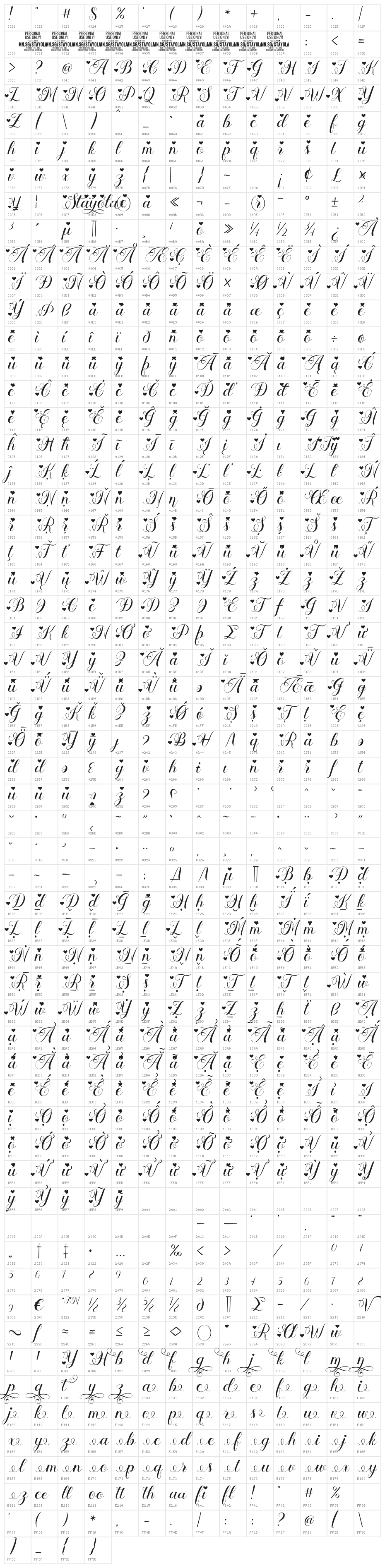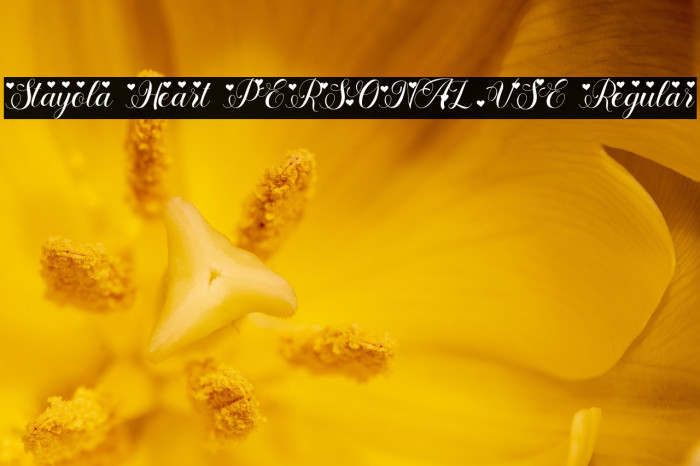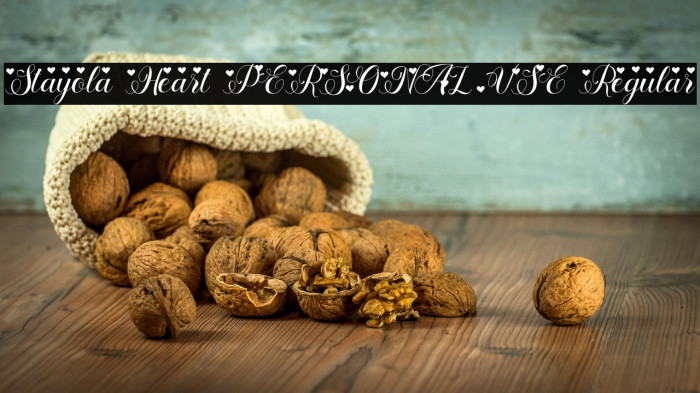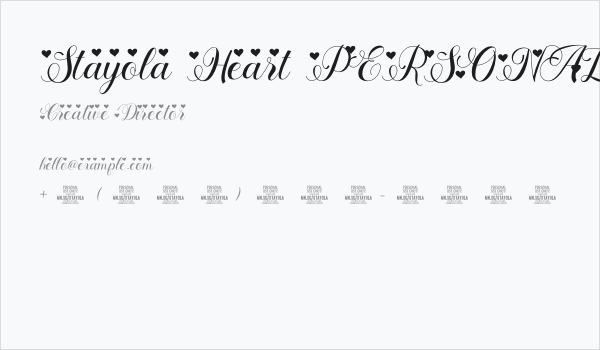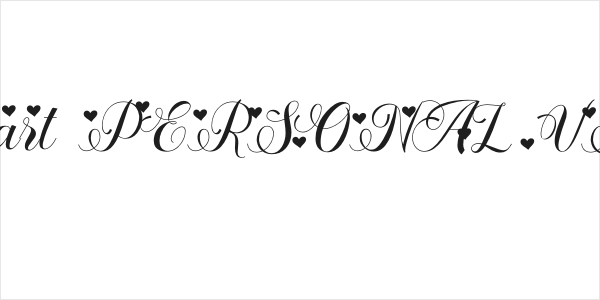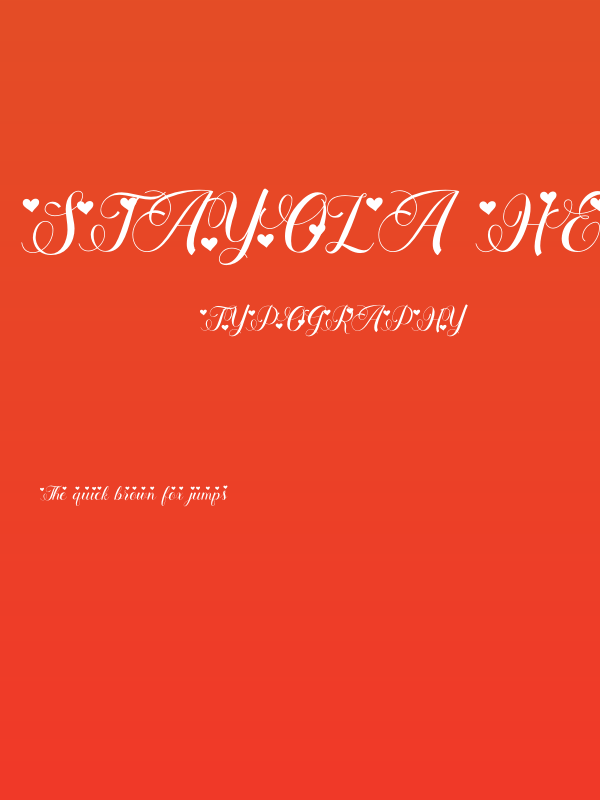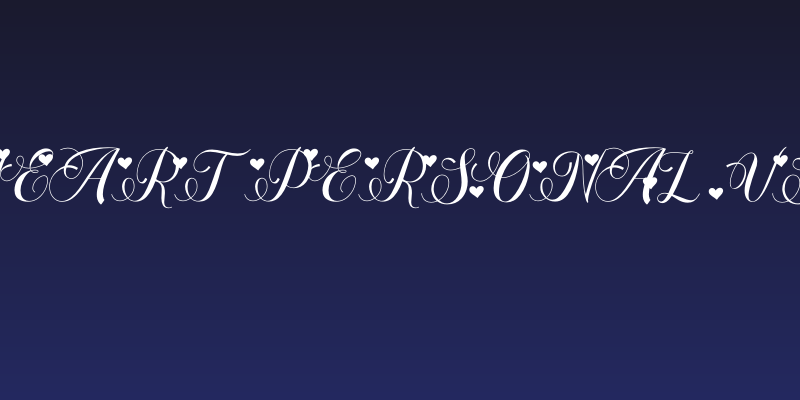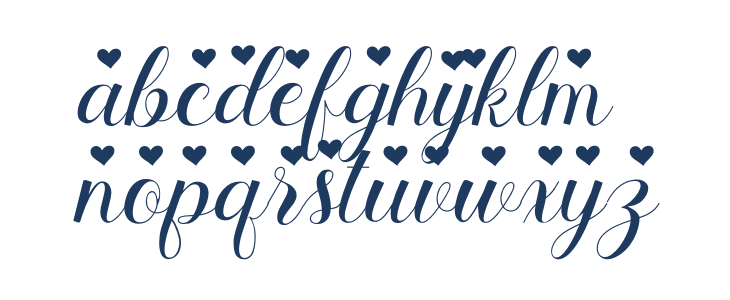
Stayola Heart PERSONAL USE Regular Font
Stayola Heart PERSONAL USE Regular Description
This font features an elegant and decorative script style with a unique heart motif integrated into each character. The letters are connected in a flowing, cursive manner, giving it a romantic and whimsical appearance. The uppercase letters are adorned with small hearts, adding a playful and charming touch. The lowercase letters maintain a consistent style, with smooth curves and loops that enhance its graceful look. The font includes a full set of uppercase and lowercase letters, numbers, and a variety of special characters, making it versatile for creative projects.
| Proposed Projects | Ideal for wedding invitations, Valentine's Day cards, love-themed branding, and decorative posters. |